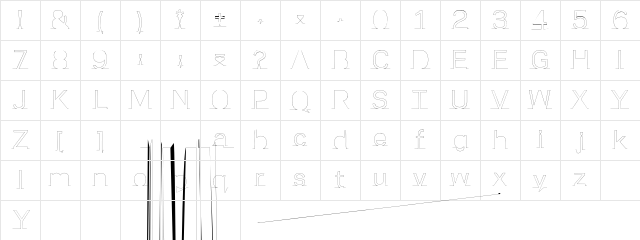
Complete Daily Regular glyph index. Displaying only characters natively supported by Daily Regular font.
Daily is a composed and adaptable typeface that performs quietly and consistently across a wide range of design contexts.